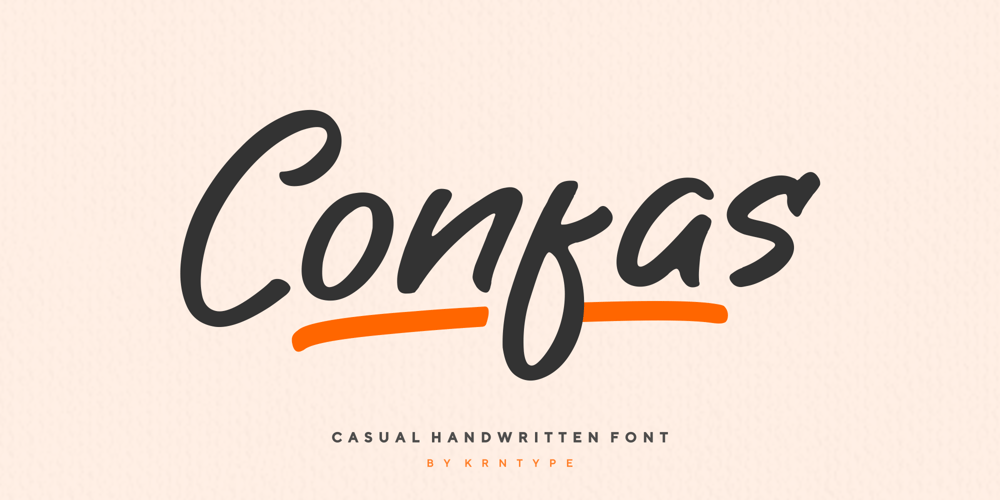
Confas
Confas font
Confas Font Family was designed by Bagus Arya Kirana and published by Krntype Studio. Confas contains 1 styles and family package options. A clean handwritten font. Confas come with stylish swashes, and ligature. This font also come with multilingual support. Confas is suitable for your creative design needs such as product packaging, merchandise, social media design, T-shirts, Logotype, and more.